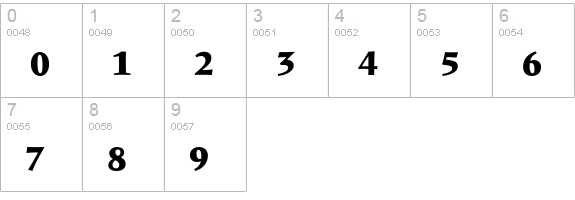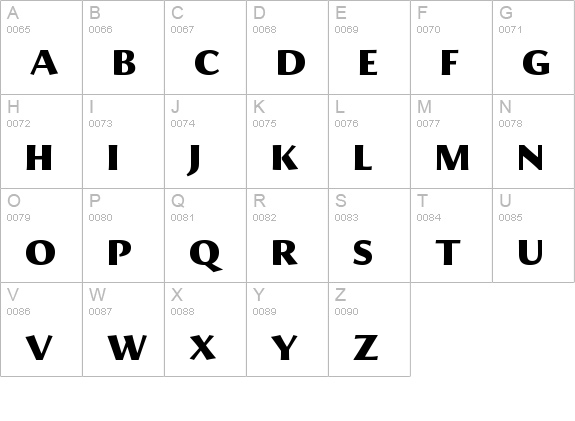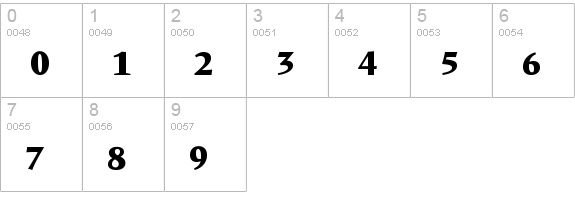
ShellSans-BlackTable is a stunning and versatile font that exudes elegance and sophistication. Its bold and sleek design makes it perfect for a wide range of applications, from headlines and titles to logos and branding materials. The distinctiveness of ShellSans-BlackTable lies in its unique blend of modernity and classic appeal. Its clean lines and sharp edges give it a contemporary feel, while its bold weight adds a touch of timeless elegance. This font is sure to make a statement and capture attention wherever it is used. One of the best aspects of ShellSans-BlackTable is that it is free. Yes, you heard that right – this exceptional font can be downloaded for free at FontsMarket.com. This means that you can enhance your design projects with this captivating font without having to worry about breaking the bank. Whether you are a professional designer looking to add a touch of sophistication to your work or a casual user in need of a font that stands out, ShellSans-BlackTable is the perfect choice. Its versatility and striking appearance make it suitable for a wide range of projects, from print to digital media. So why wait? Head over to FontsMarket.com today and download ShellSans-BlackTable for free. Elevate your designs and make a lasting impression with this remarkable font.